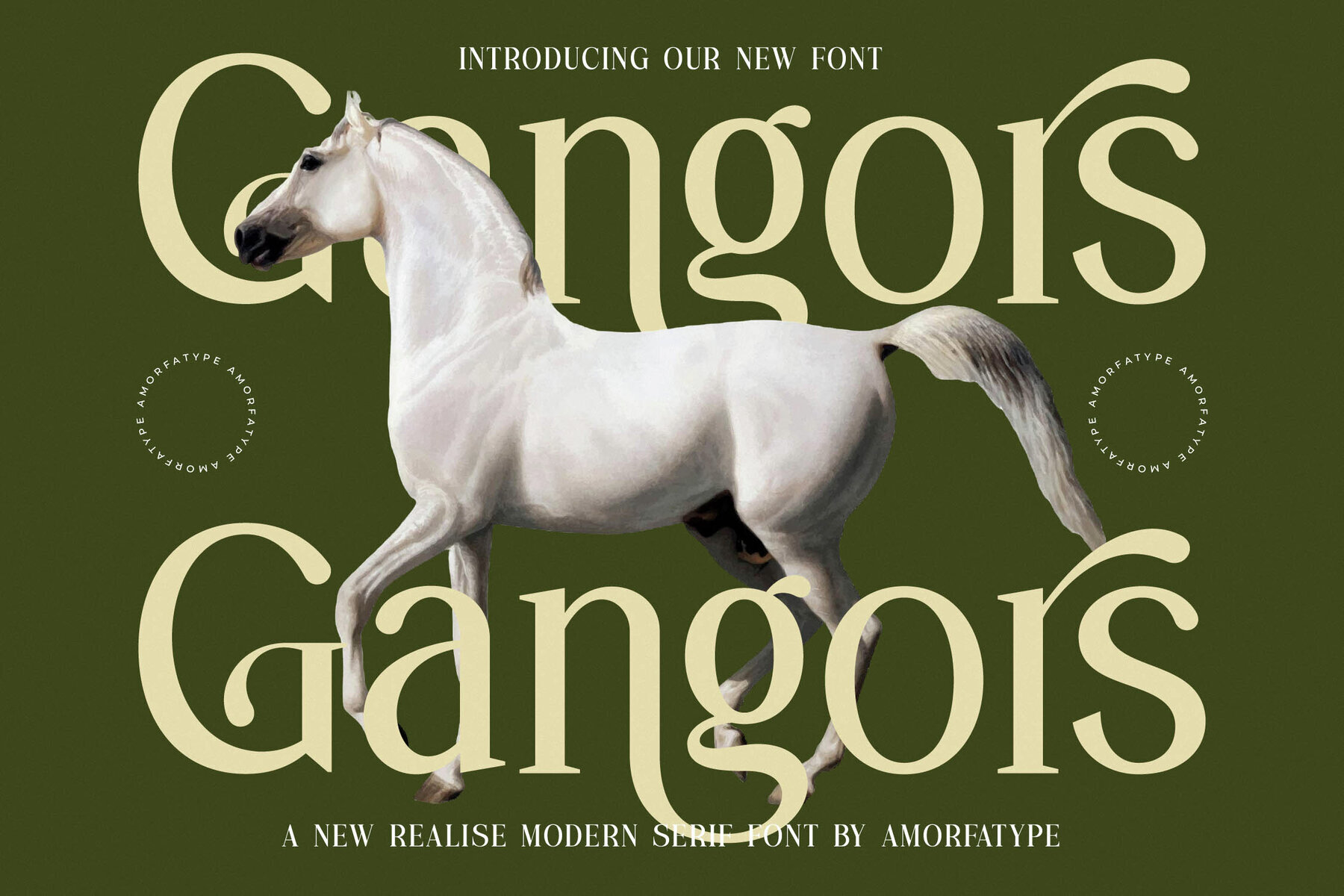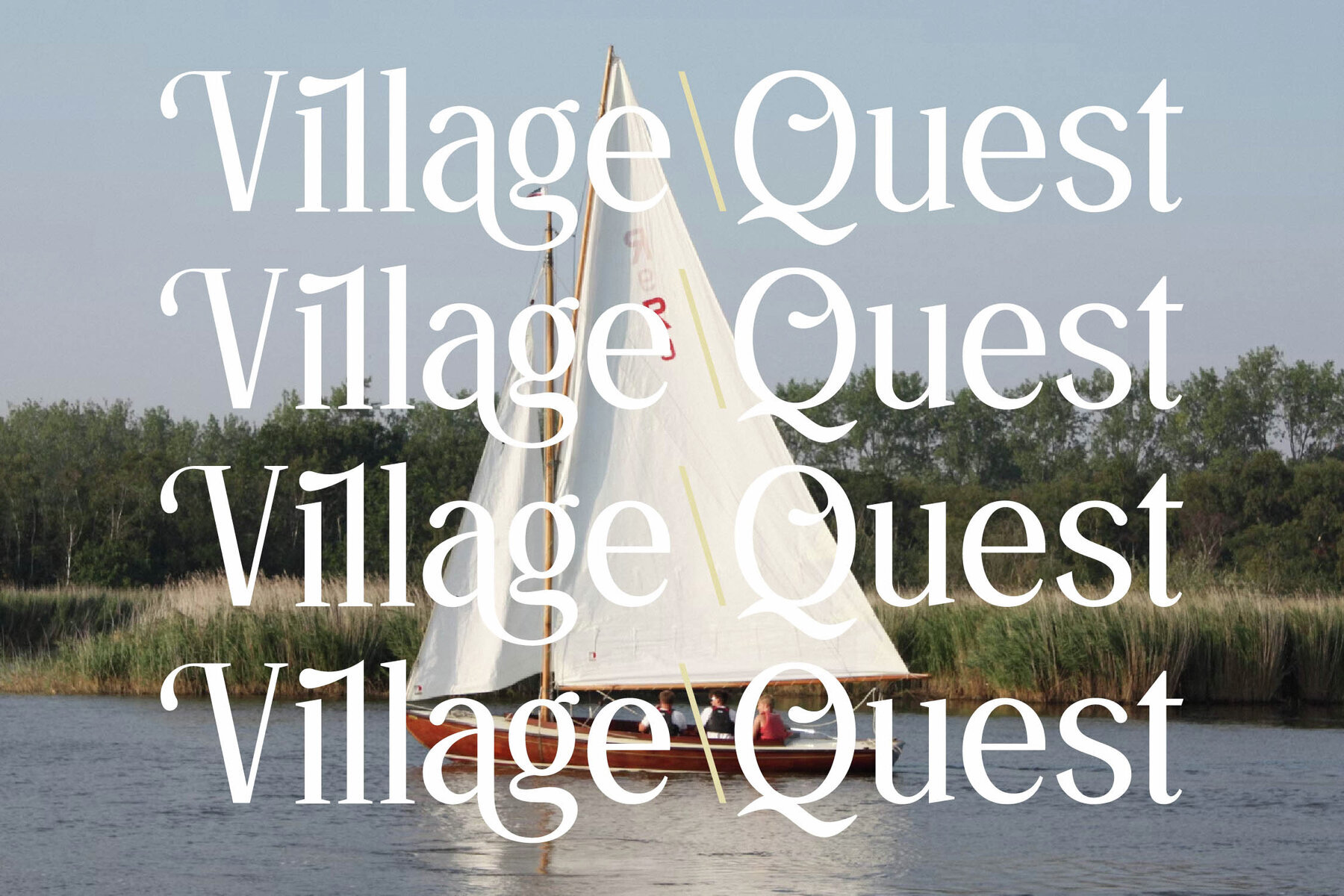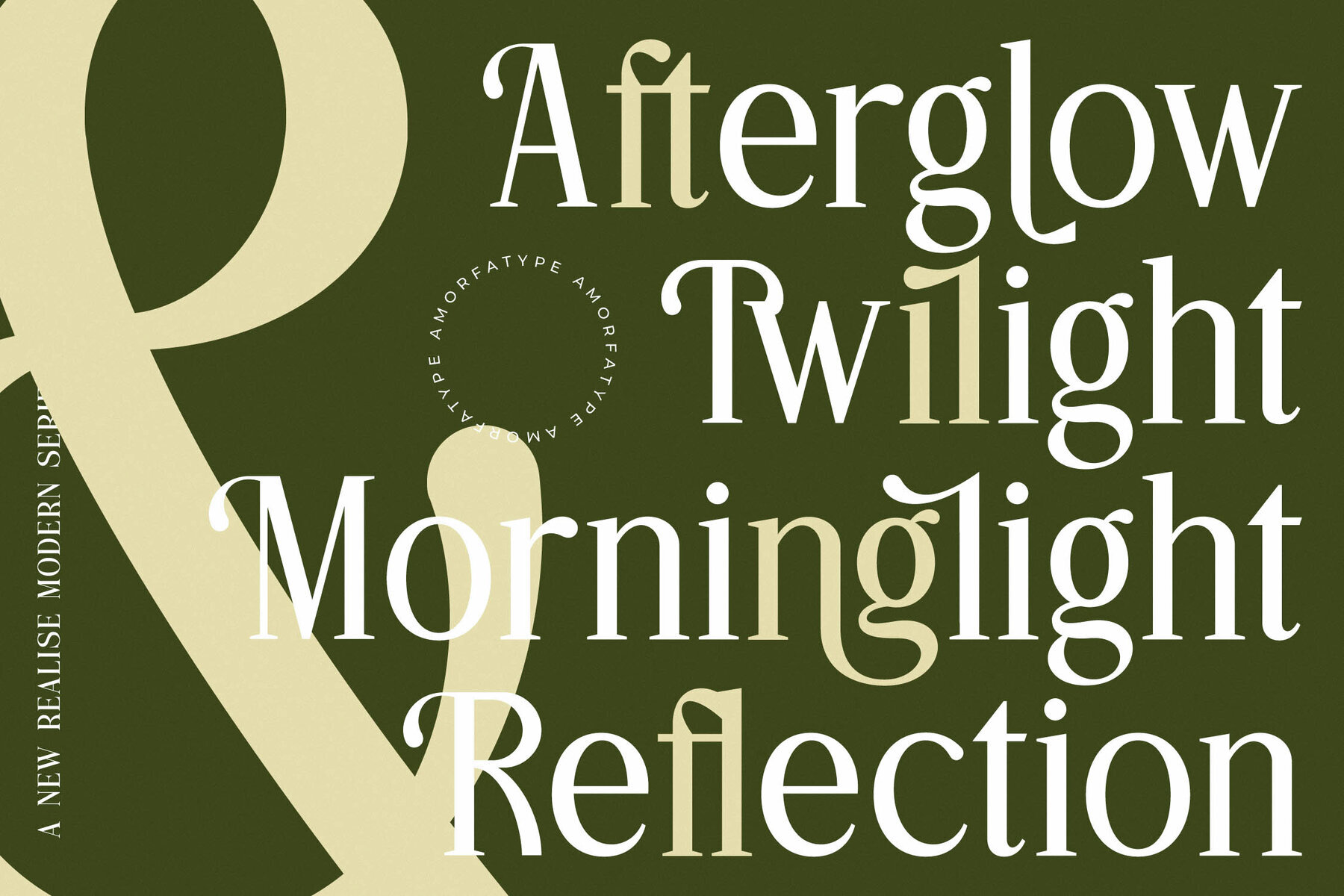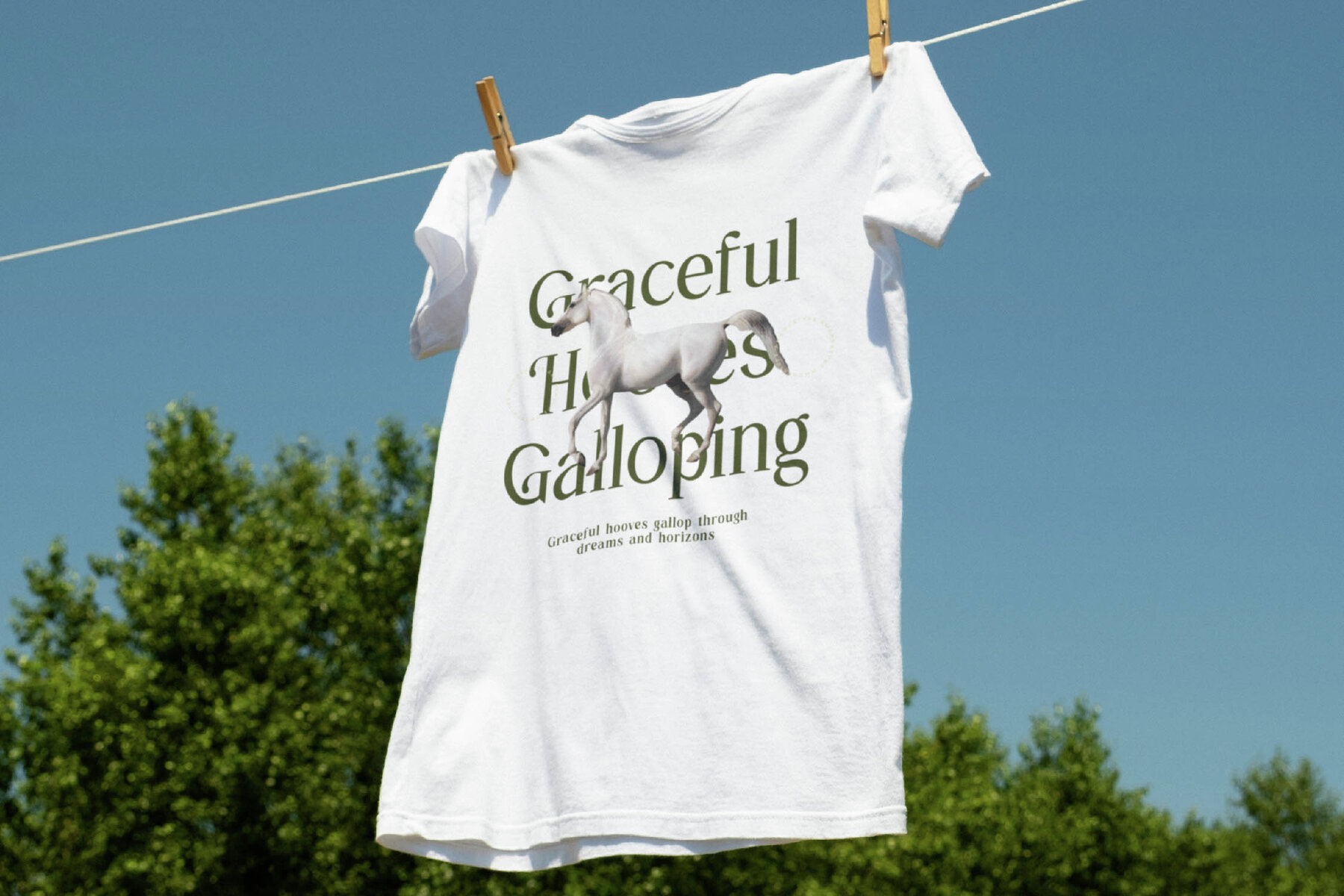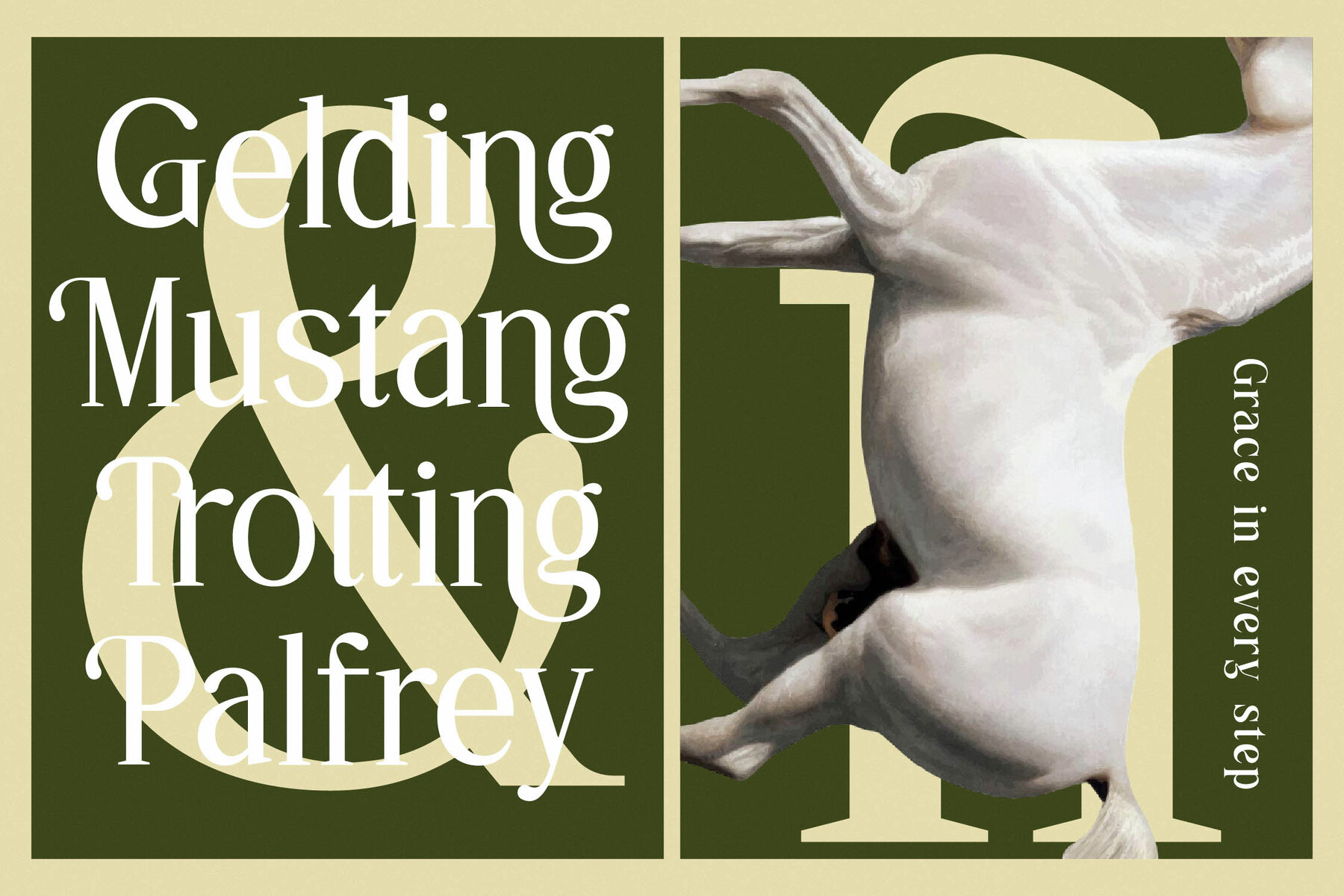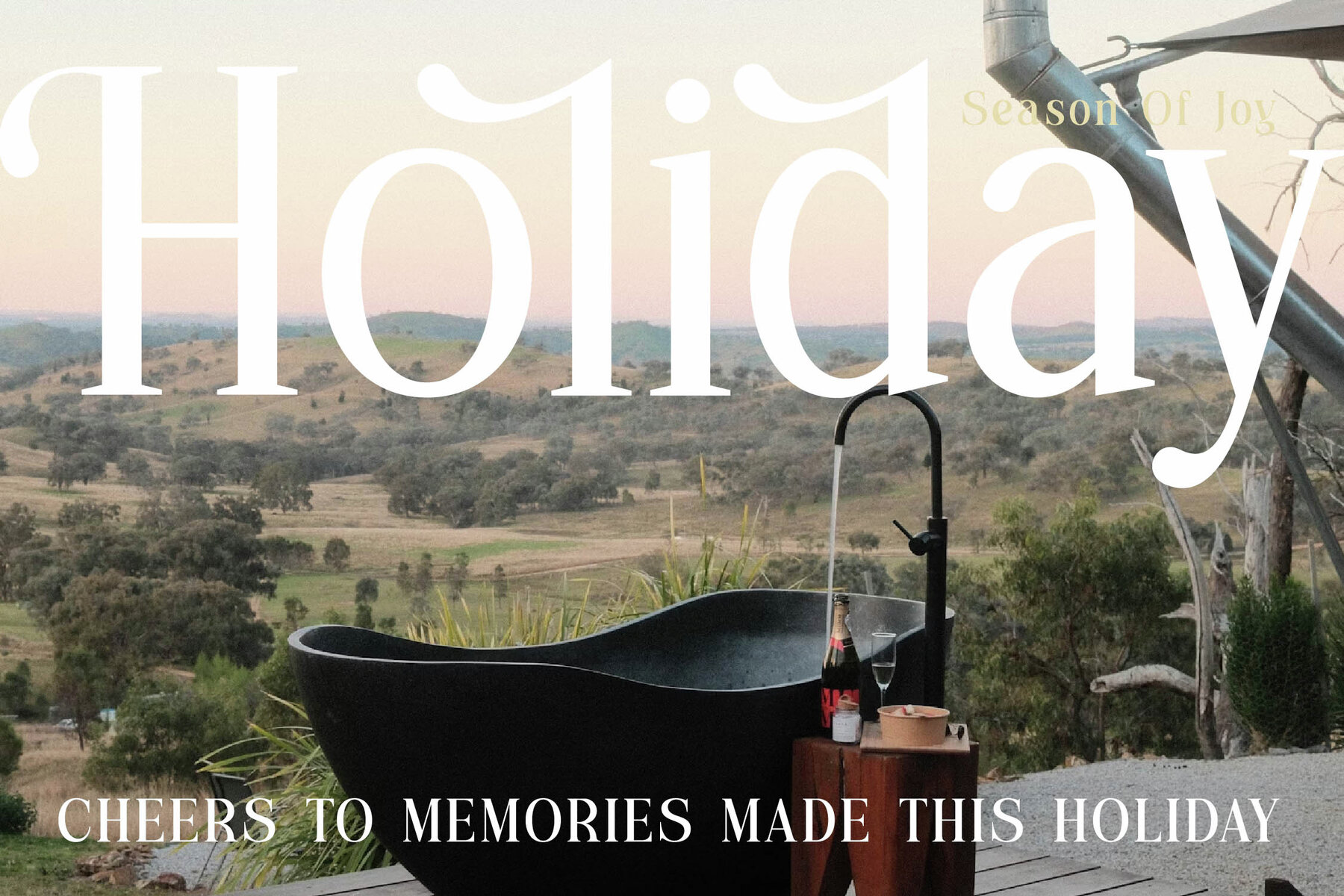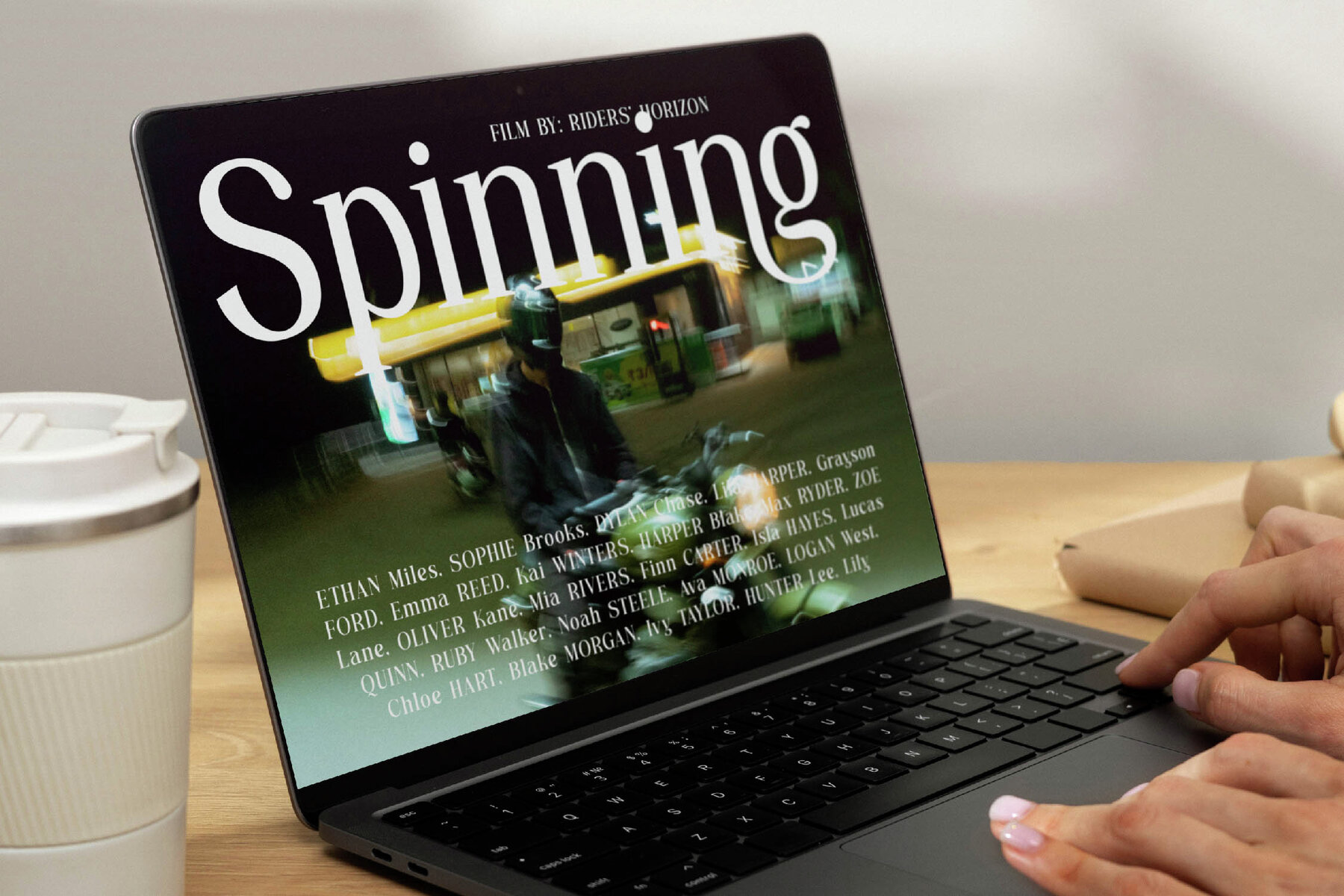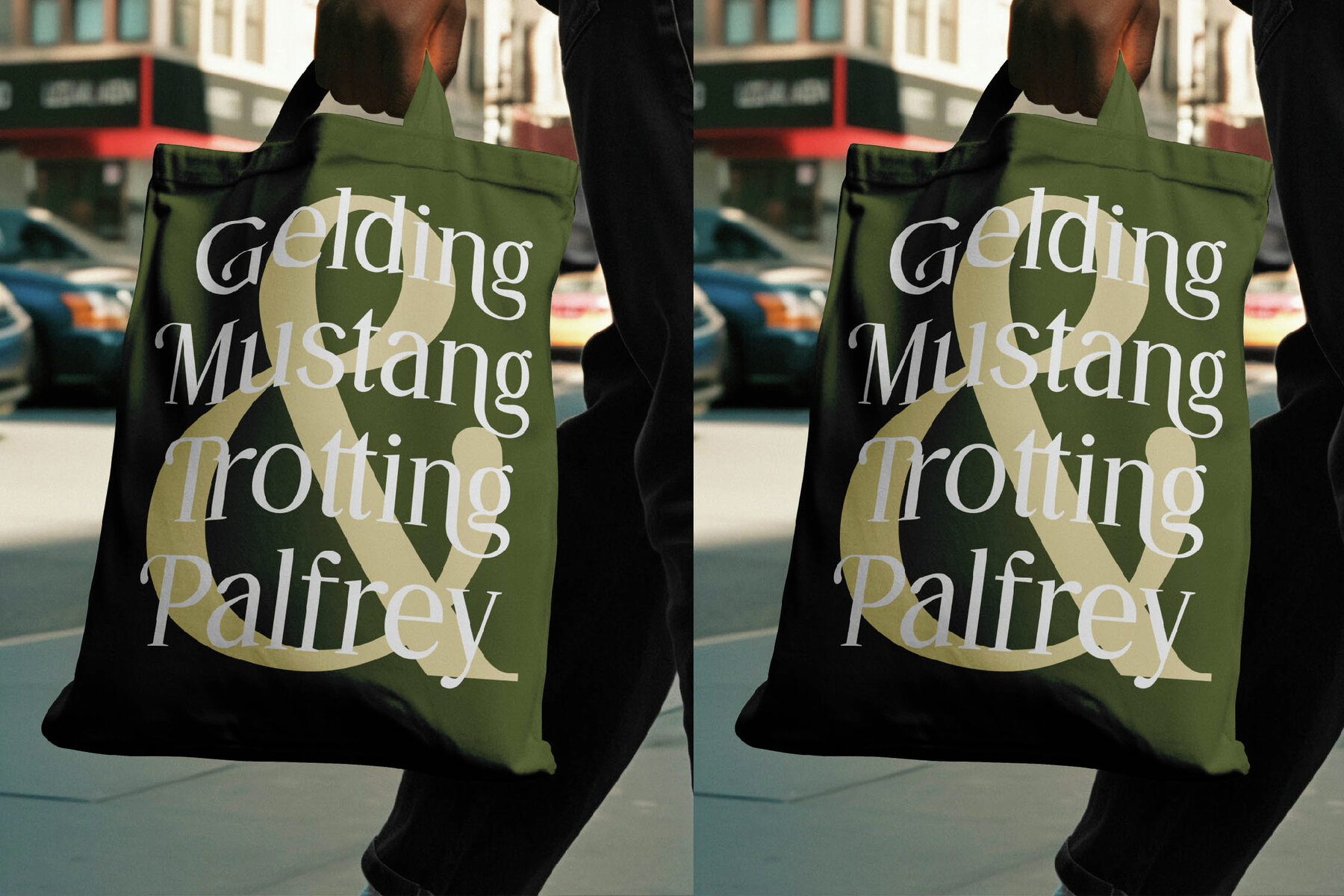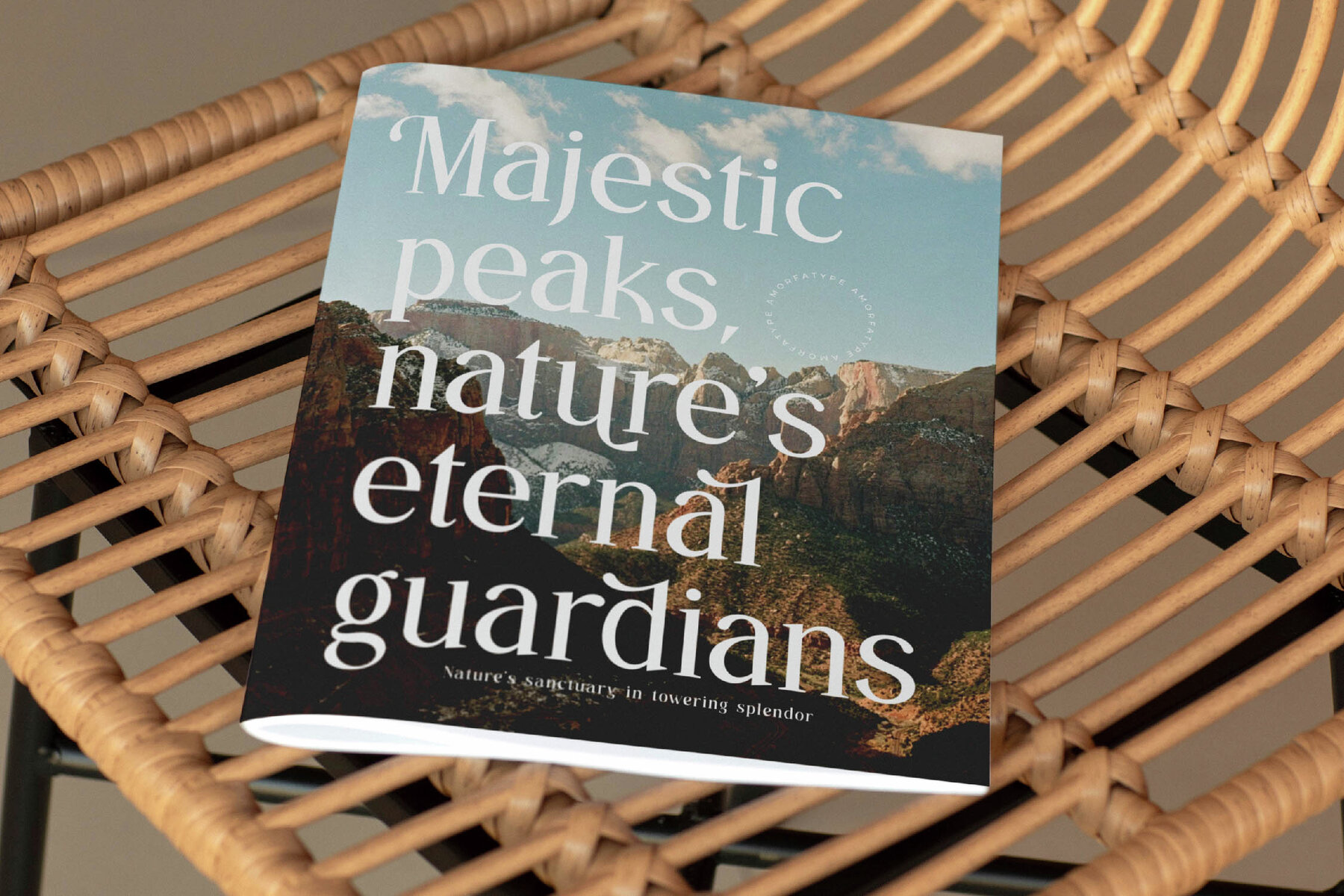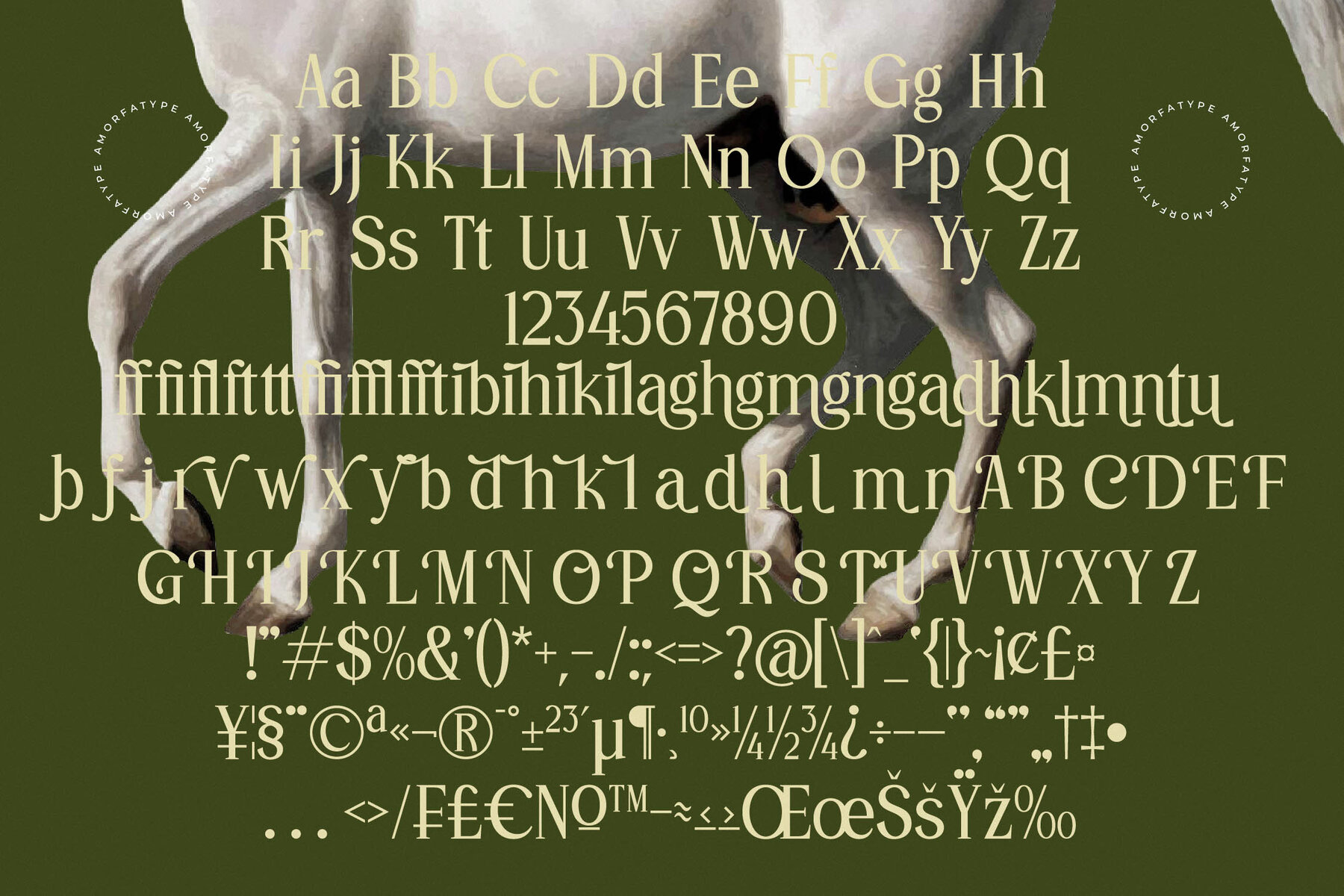
Gangors Font
Gangors is a modern serif font that merges tradition with contemporary design, characterized by sharp geometric serifs and clean lines for a bold look. This font excels in readability while offering a unique and sophisticated appearance. Gangors' subtle stroke weight contrasts and elegant detailing provide a perfect balance between sophistication and modernity, making it ideal for projects that require both elegance and clarity.
Whether for high-end branding, editorial designs, or sleek digital interfaces, Gangors delivers a sense of timeless luxury. Each character is crafted with meticulous precision to ensure excellent legibility while maintaining its modern edge. The versatile design of Gangors allows it to stand out in both large display and smaller, detailed text, adding a refined touch to any creative project.